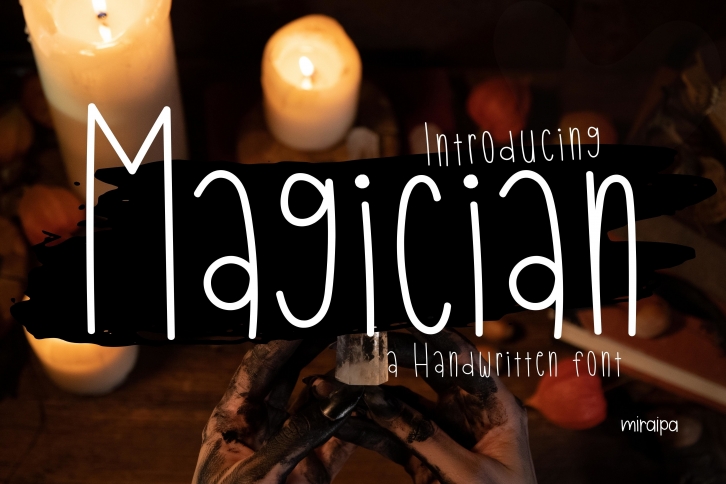
Magician is designed in a friendly and lovely style. It would be awesome for your diary planner, back-to-school projects, wedding, party decorations, invitations, festivals, posters, blogs, clothing, child-related designs, greeting cards, social media posts, or anything that needs a friendly touch. Add it now to your fonts library, and it will bring any of your DIY projects to life.